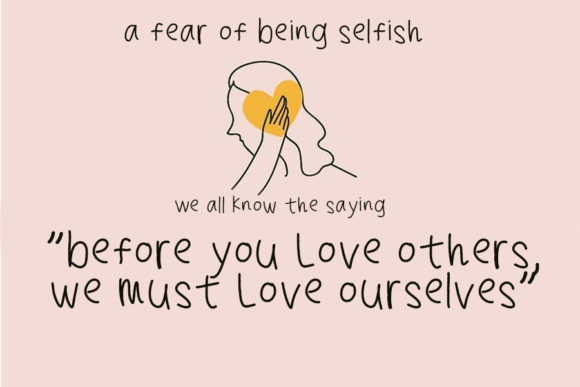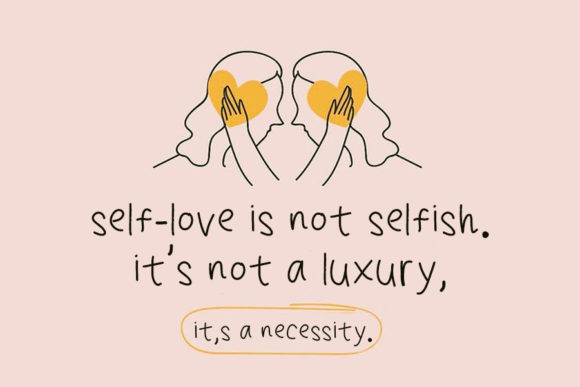
Kids Gang Font
db-ku.com - Script & Handwritten -- Kids Gang is a magical handwritten font carefully created with a touch of creativity. Whether you’re looking for fonts for Instagram or DIY projects, this font will turn any creative idea into a true piece of art!